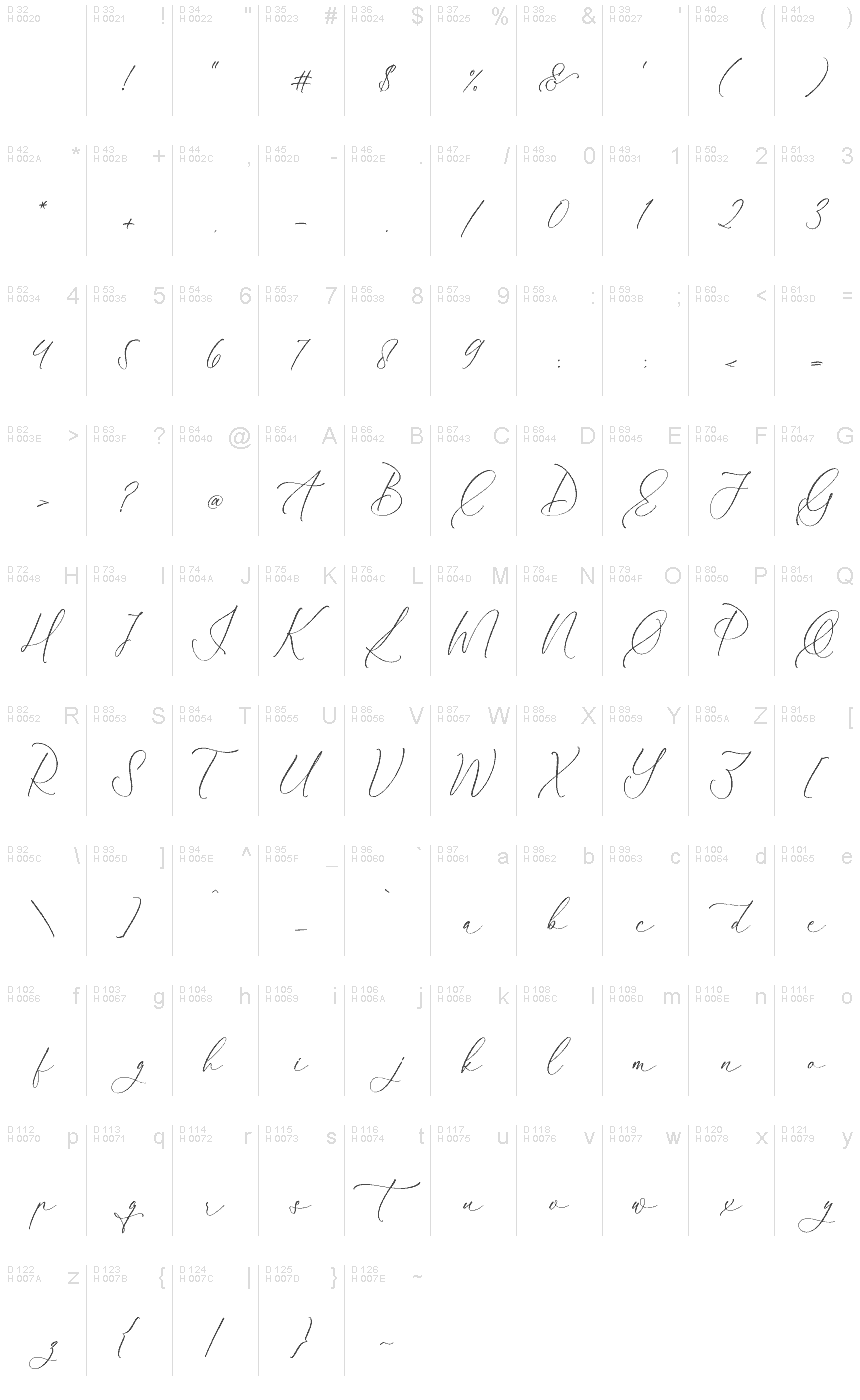
Qloveland Marrtin
Qloveland Marrtin font from Storytype Studio is a delicate and light handwritten font that presents an effortlessly expressive signature style. Its elegant flow and sophisticated appearance contain subtle differences between each letter, with those different strokes providing the ultimate personal touch to your writings.